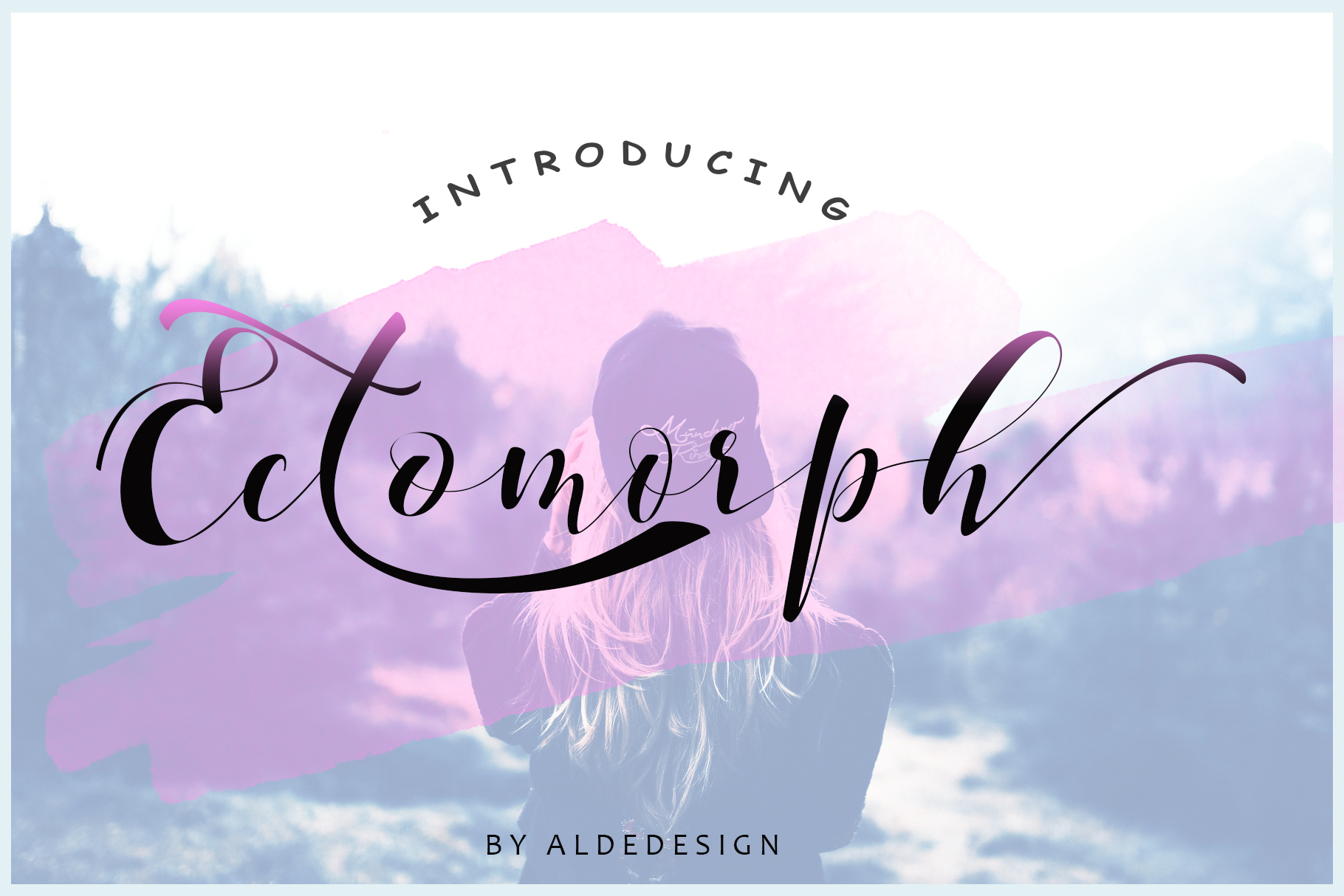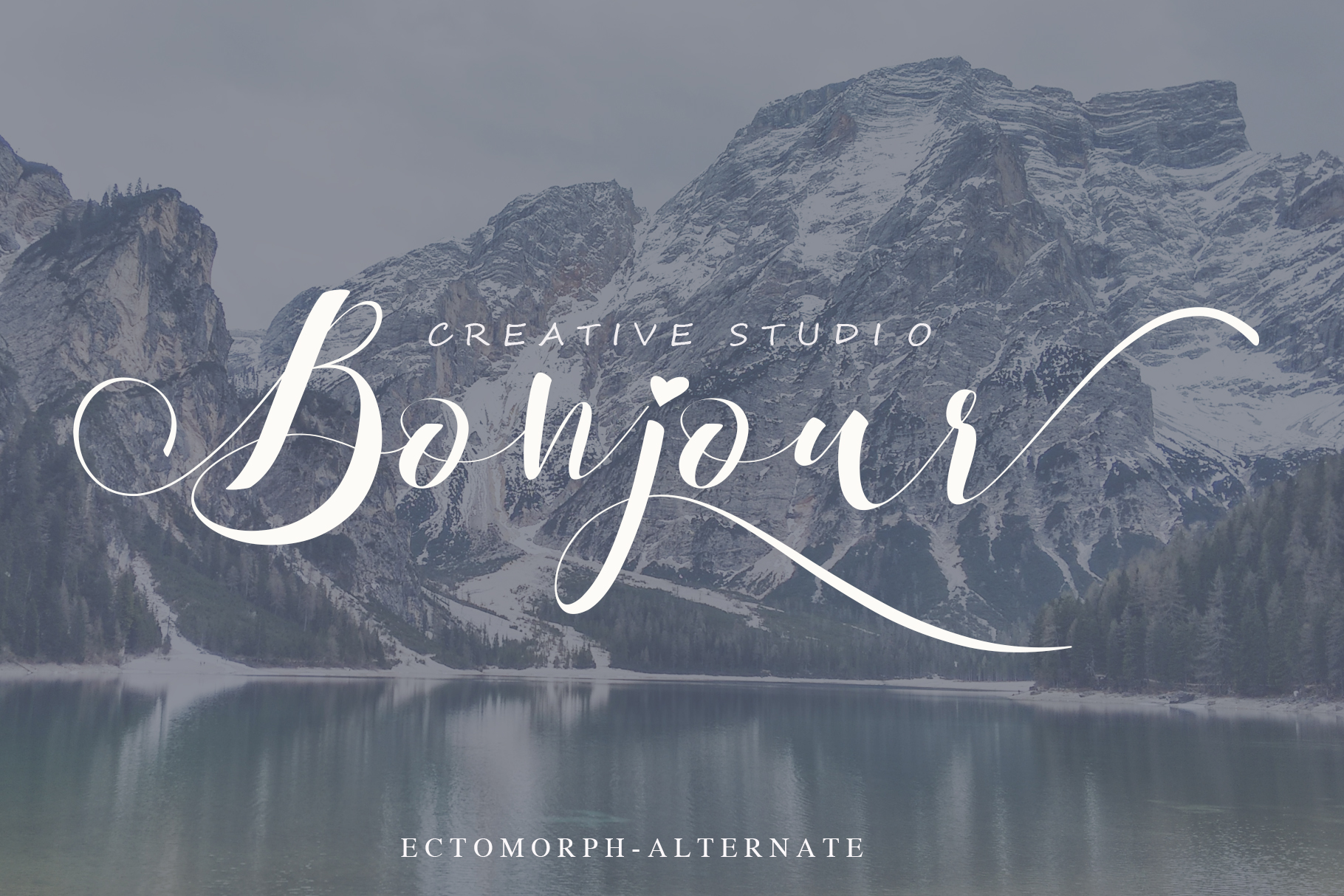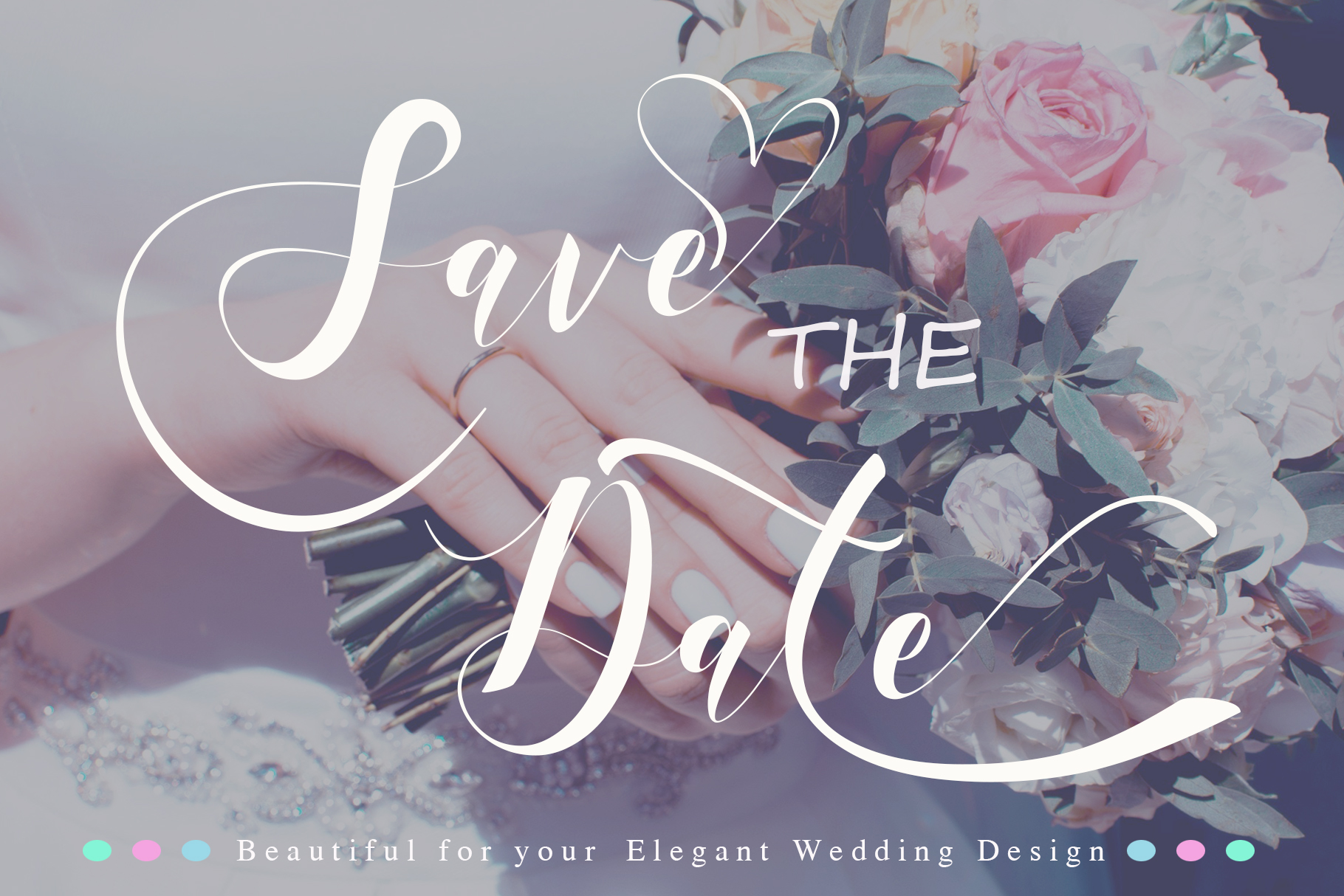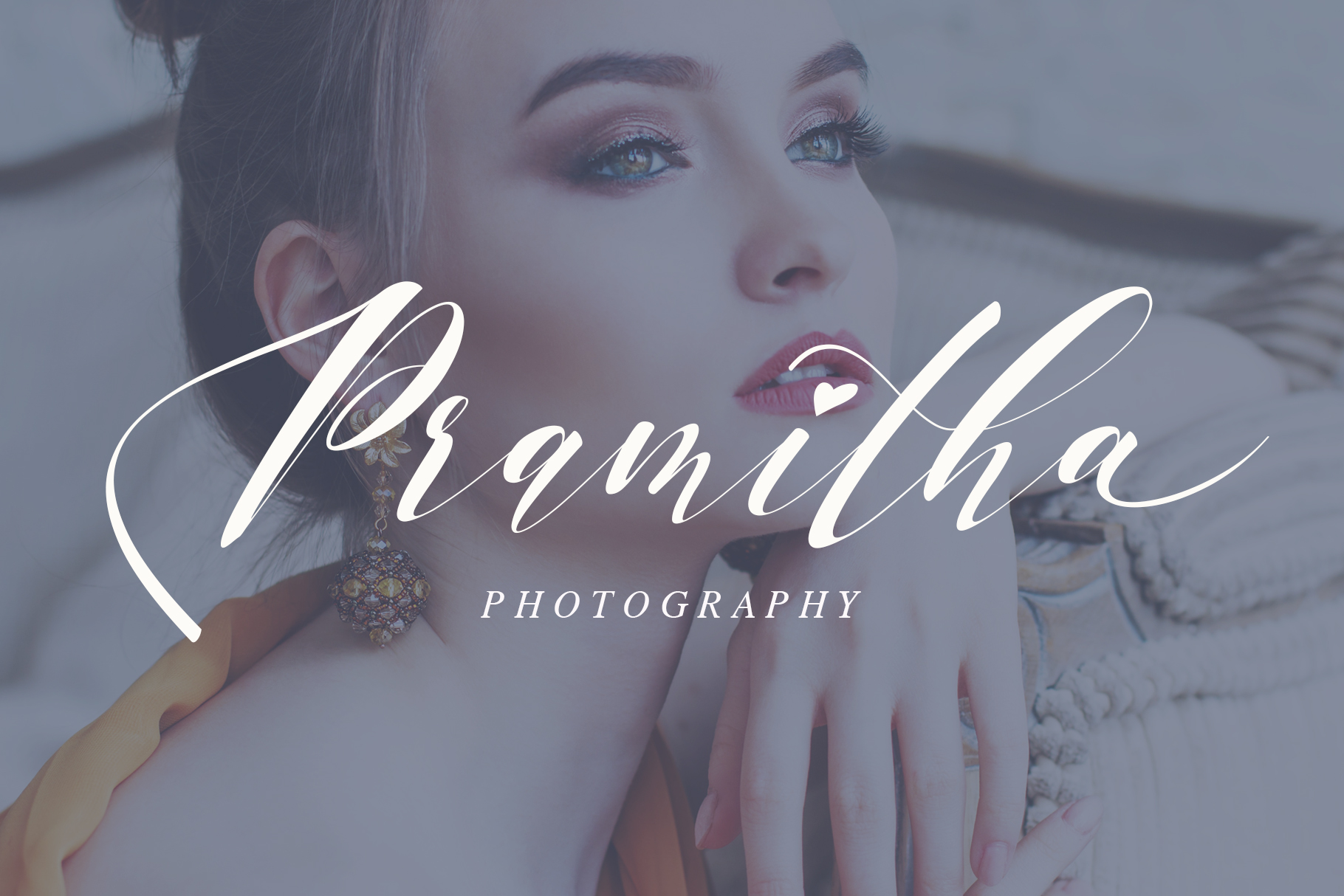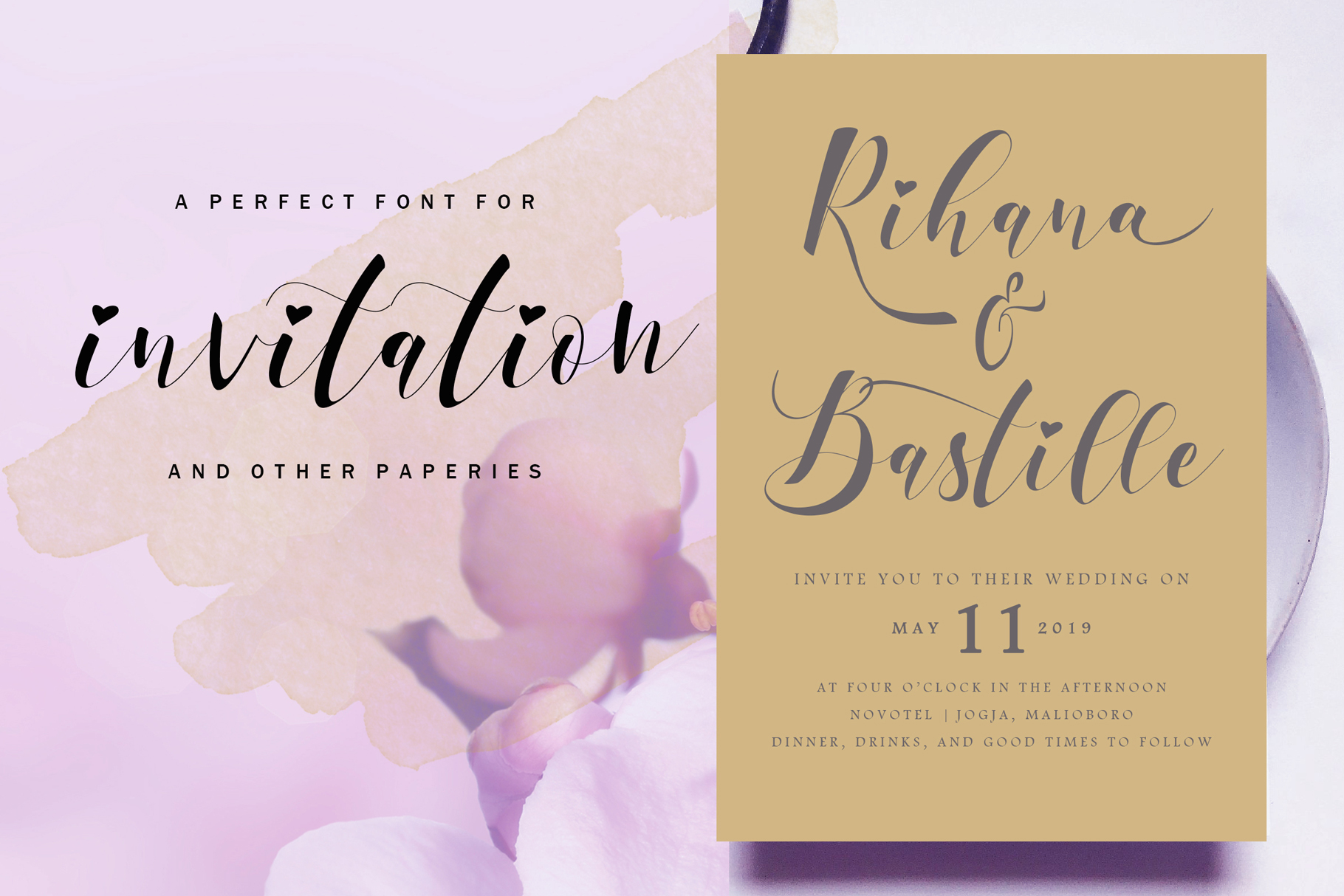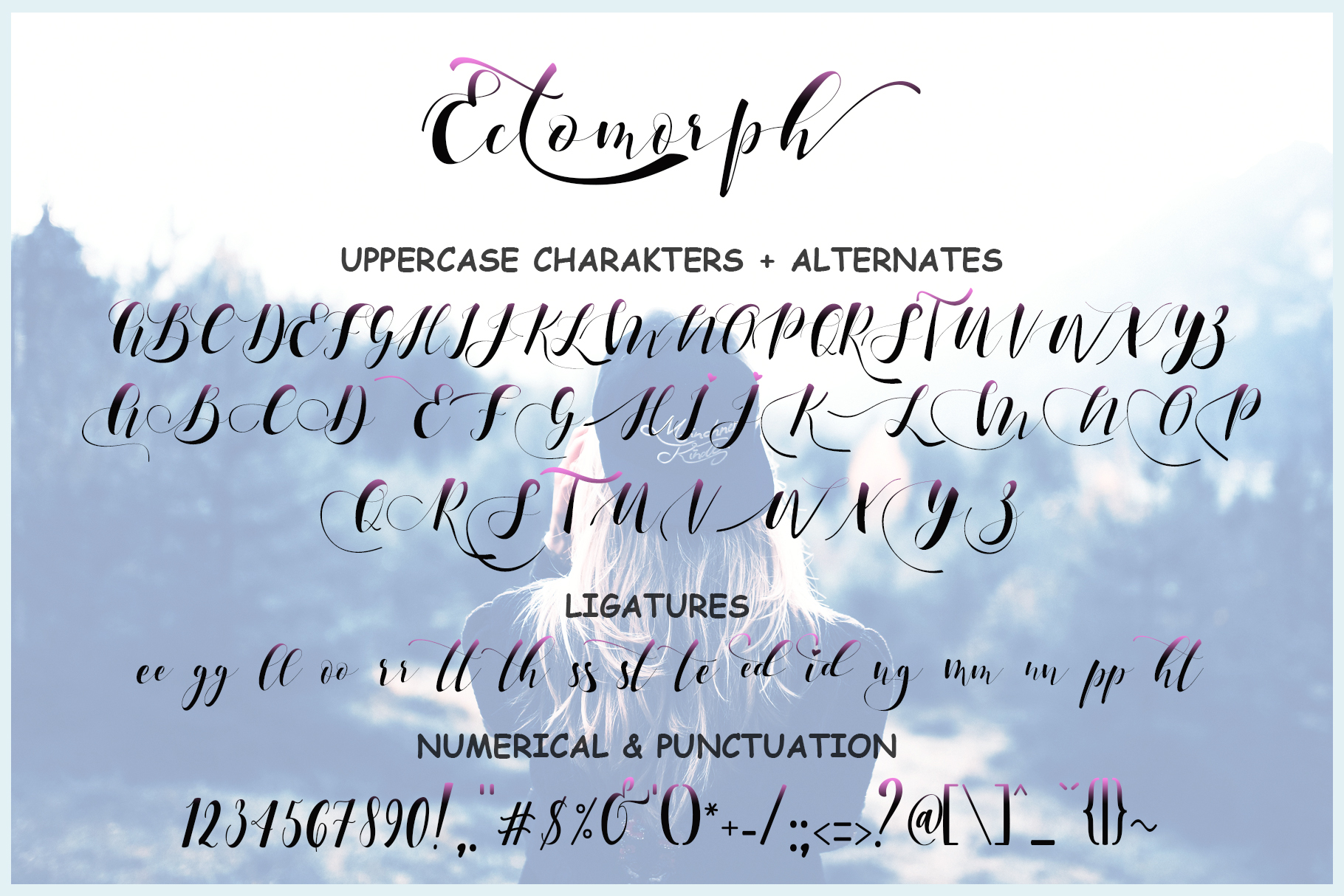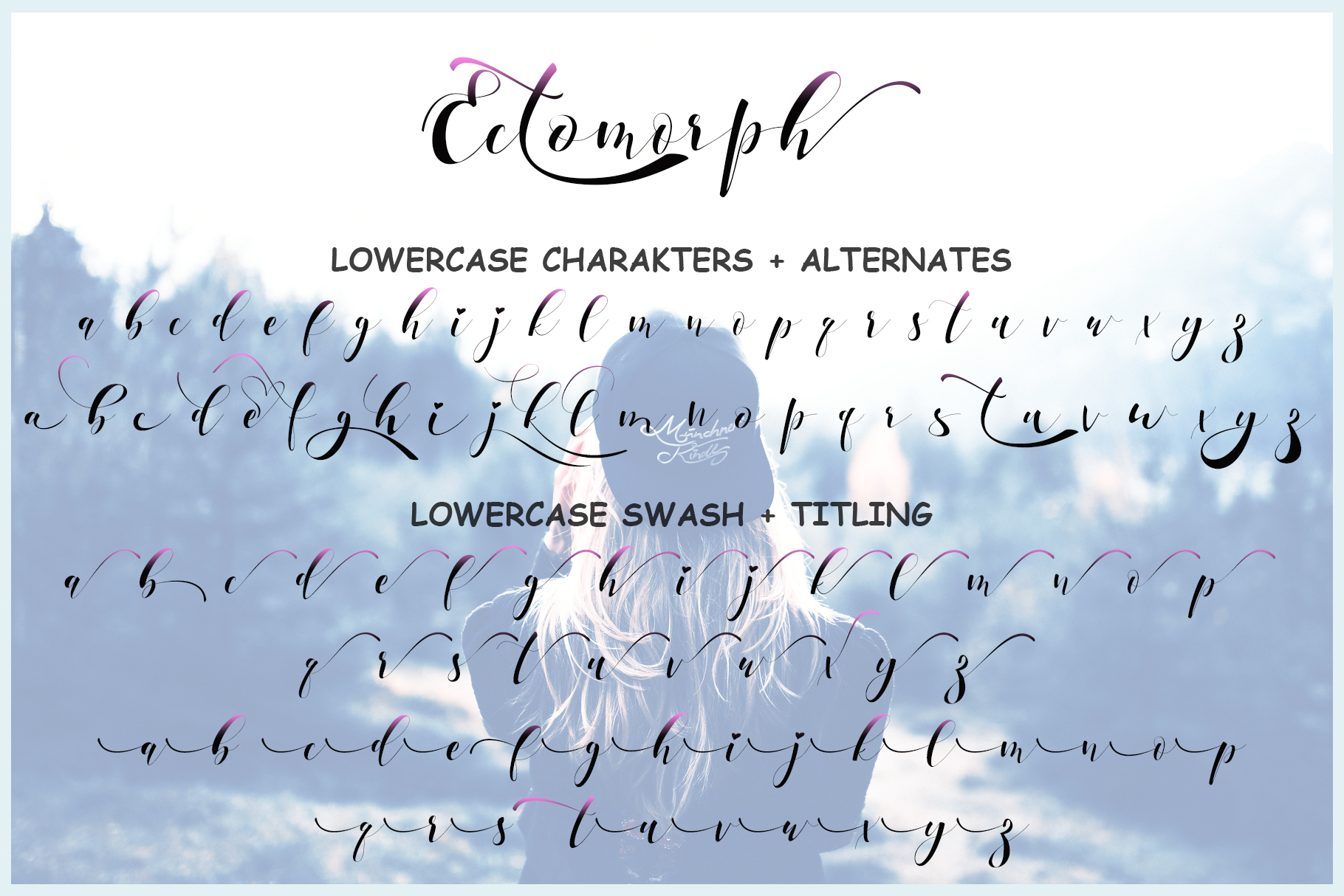
Ectomorph Font
About Ectomorph Font
Ectomorph Script is a beautiful handwritten font with stylistic alternates, swash, titling and multilingual support. This script font is can be used to give your projects a modern and casual flair with a natural and elegant approach to typography.